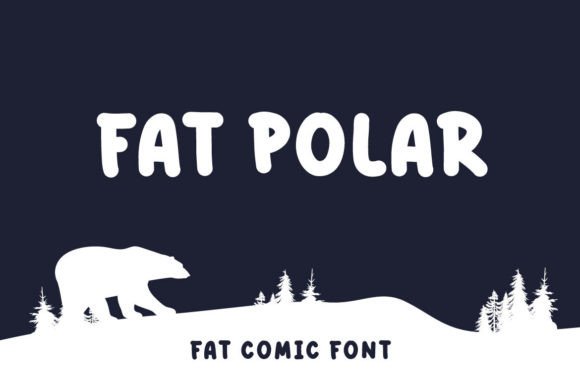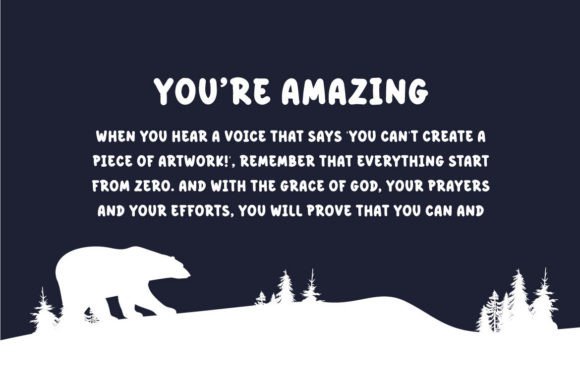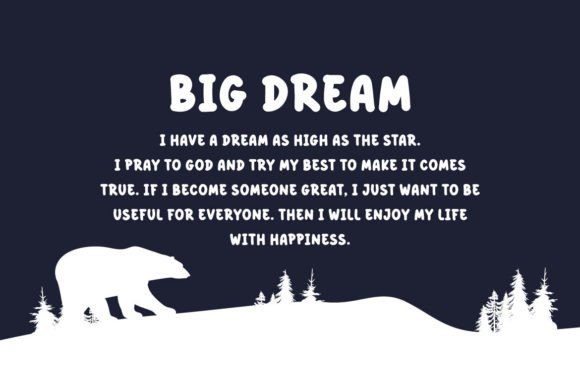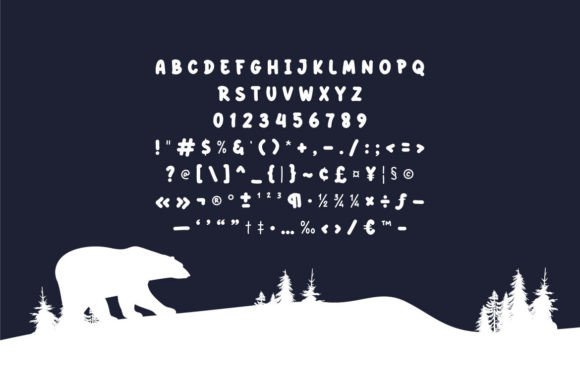
Fat Polar Font
About the Fat Polar Font
Meet Fat Polar Font, a stunning font that brings a touch of elegance and professionalism to any design. **Fat Polar** is a minimalist handwritten comic font.
Fat Polar can be used in any works such as comic book, poster, school, flyer, book title, advertisement, social media content, logo and many more.
Its bold, playful strokes make it ideal for headlines, posters, and branding projects needing a touch of friendly approachability. It works exceptionally well for children’s products, casual brands, or projects emphasizing fun and energy. Avoid using it for body text or lengthy paragraphs; its informal style is less legible at smaller sizes.
Consider pairing Fat Polar with a clean sans-serif like Open Sans for a balanced contrast, or a geometric sans-serif for a more modern feel. A simple serif like Merriweather could also provide a sophisticated counterpoint if a slightly more formal context is desired.
Fat Polar’s overall personality is best described as cheerful and approachable, but maintains a contemporary edge. It lacks the sophistication needed for luxury brands or serious corporate settings.
Fat Polar Font Usage Examples
Fat Polar Font Example